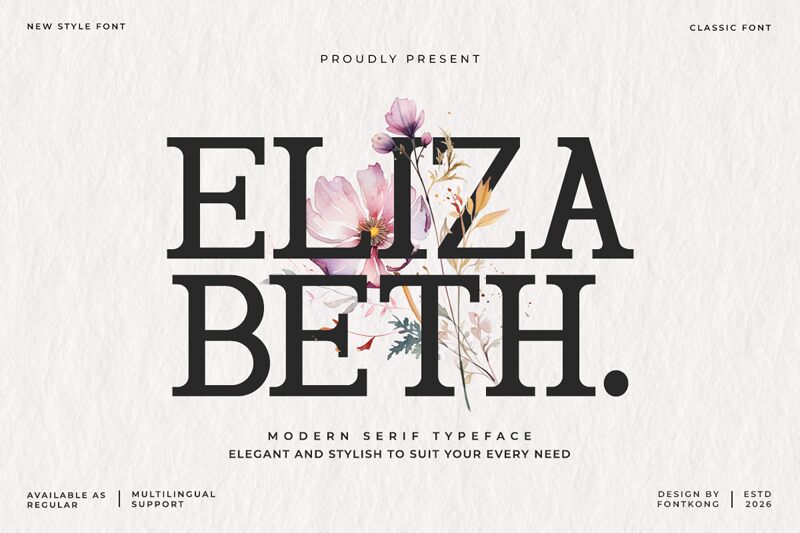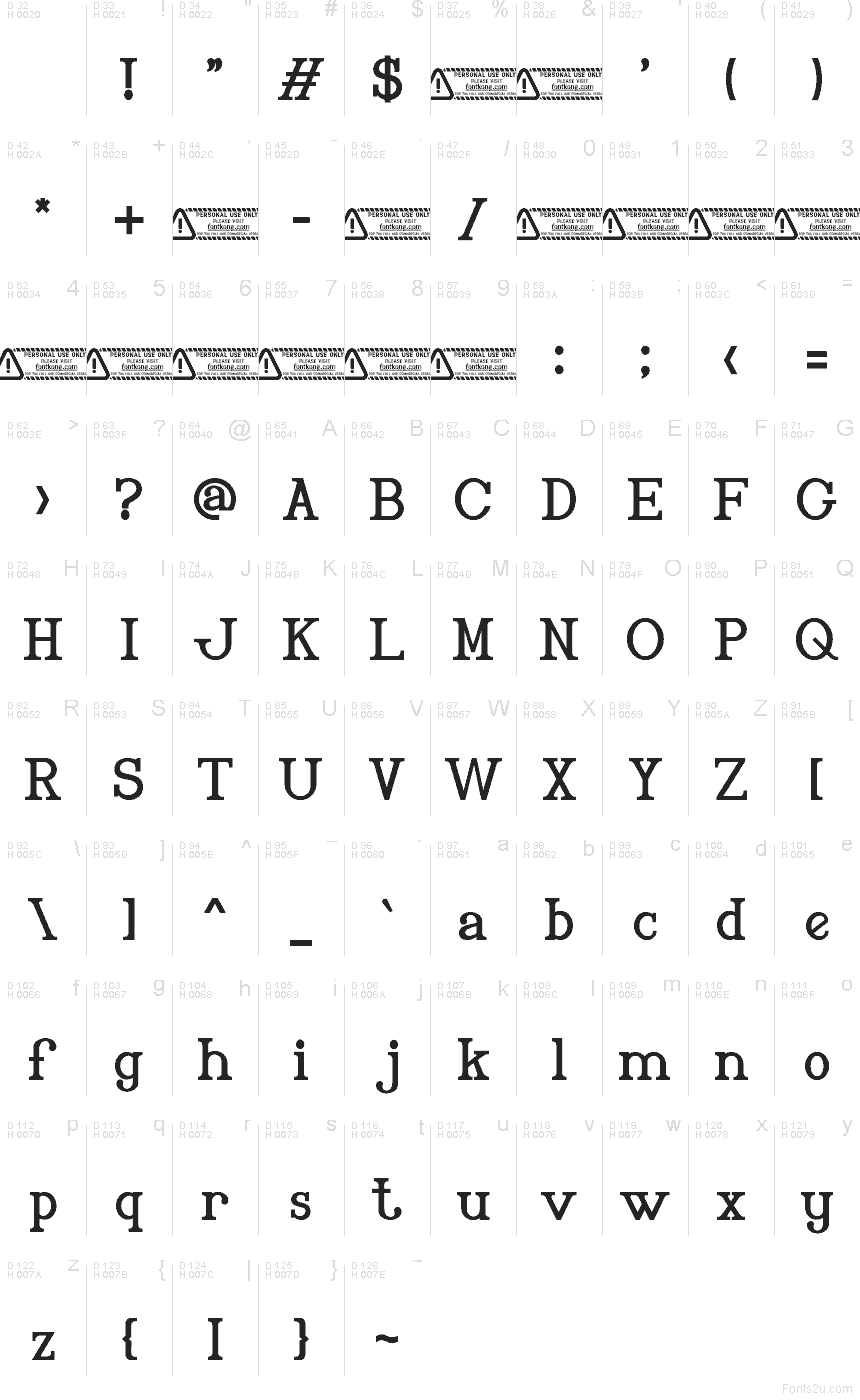
Elizabeth font by Kong Font is a free serif typeface that blends bookish calm with a playful twist. Its stout letterforms, rounded shapes, and subtly softened edges give it a warm, ink-on-paper feel, while the distinctive curves keep it from ever looking stuffy. The overall rhythm is steady and confident, making text feel approachable without losing a sense of refinement.
Using Elizabeth, this free font shines on boutique branding, artisanal packaging, children’s book covers, cafe menus, invitations, and characterful headlines. The sturdy shapes hold up well at larger sizes where those quirky curves can really show, yet remain readable in short paragraphs. Pair Elizabeth with a clean geometric sans for captions or UI elements to balance its friendly personality with a crisp modern touch.